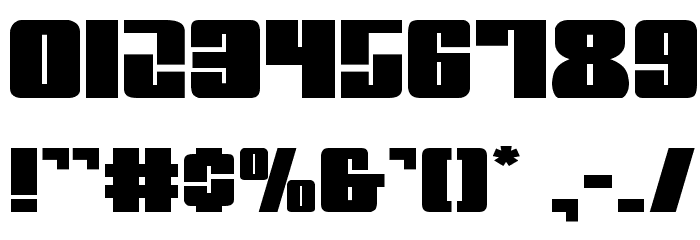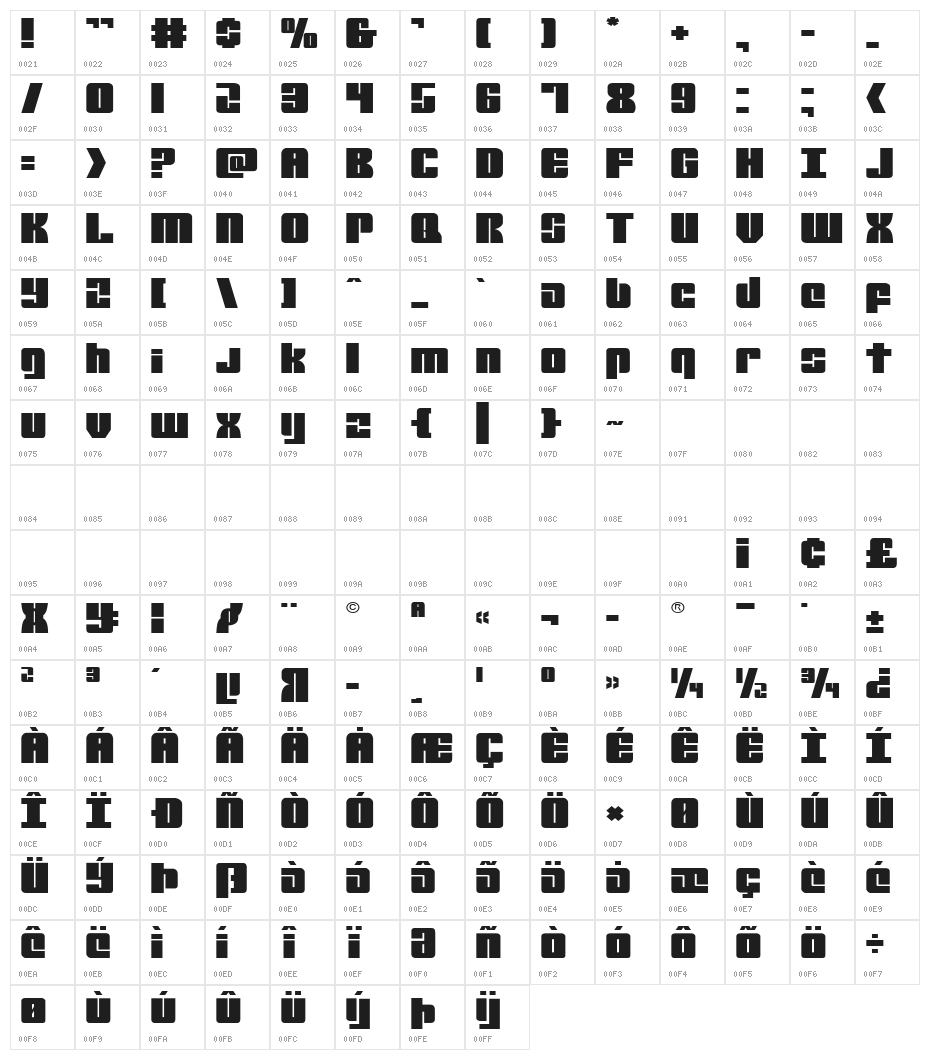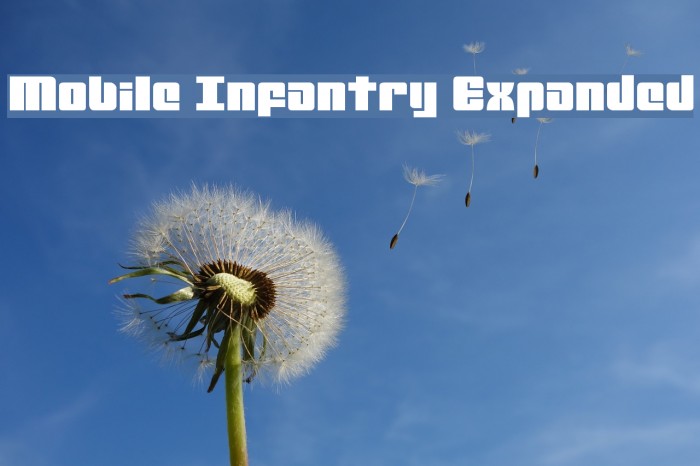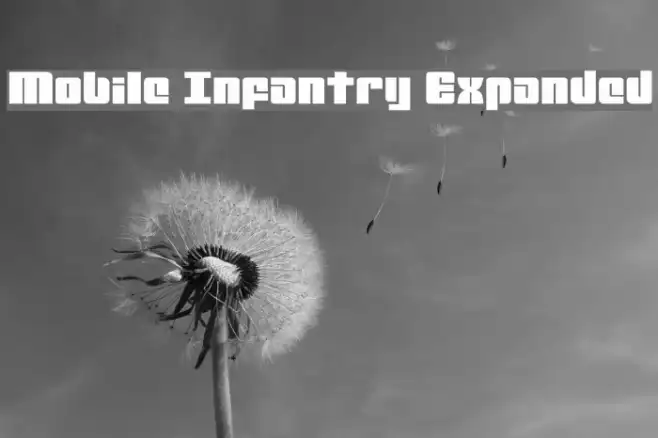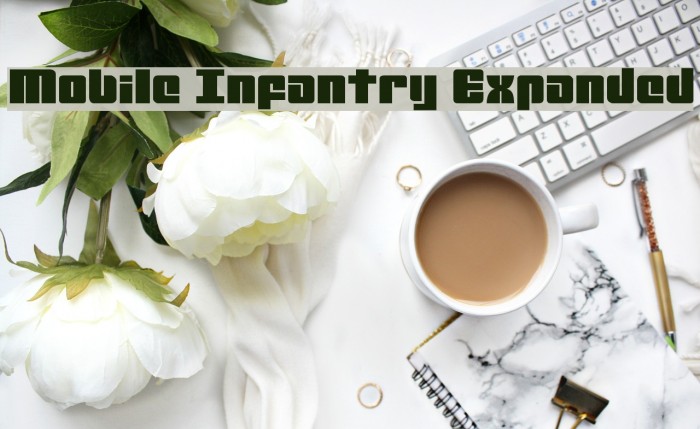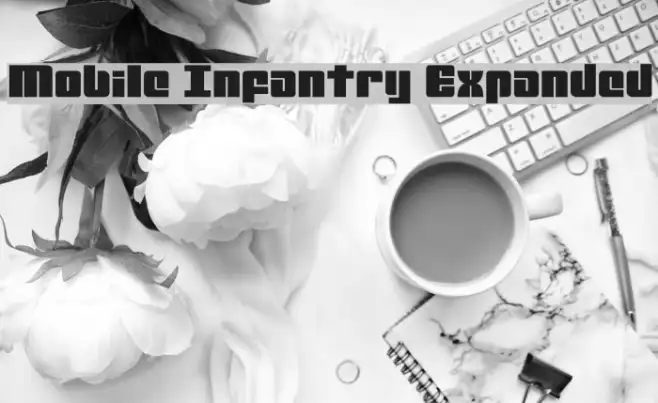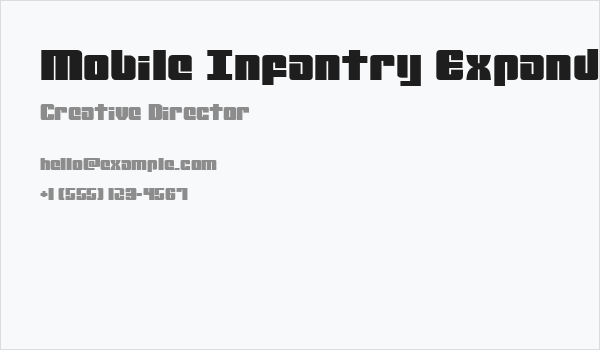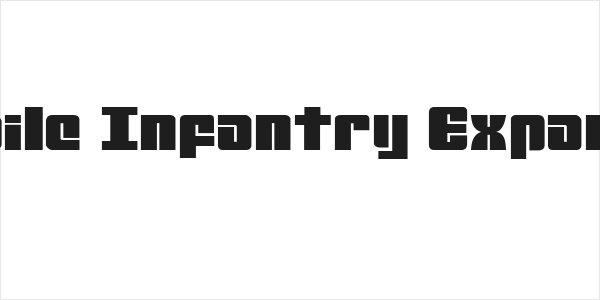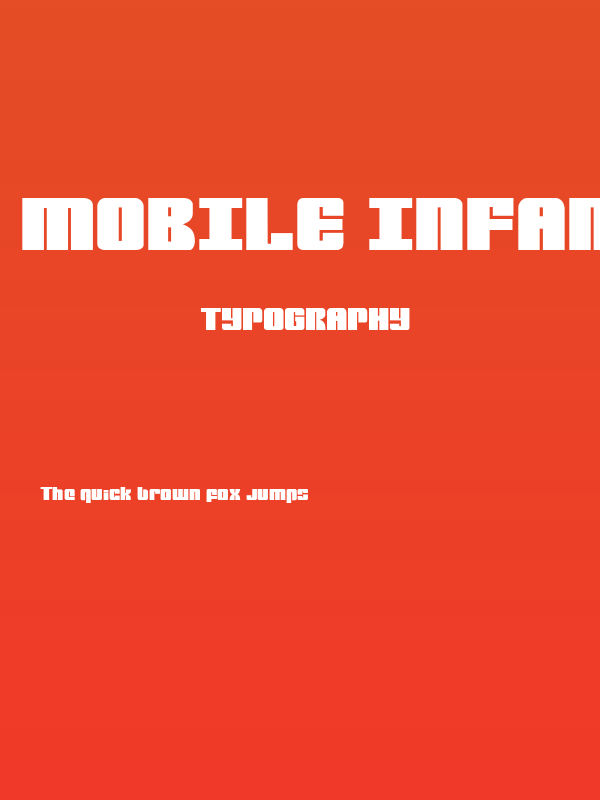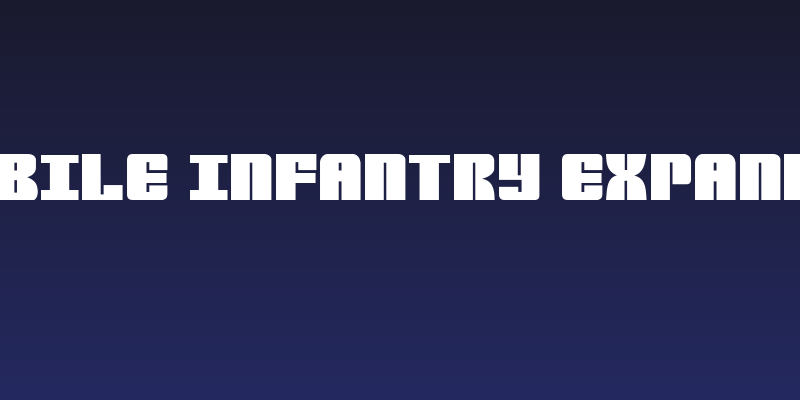
Mobile Infantry Expanded Font
Mobile Infantry Expanded Description
This font features a bold, geometric design with a strong, military-inspired aesthetic. The characters are blocky and robust, with a uniform thickness throughout, giving it a powerful and commanding presence. The uppercase and lowercase letters maintain a consistent style, with angular cuts and sharp edges that enhance its futuristic and industrial feel. The numbers and special characters follow the same design principles, ensuring cohesion across all elements. This font is ideal for projects that require a bold statement and a modern, edgy look.
| Proposed Projects | Ideal for video game titles, movie posters, military-themed branding, and futuristic design projects. |